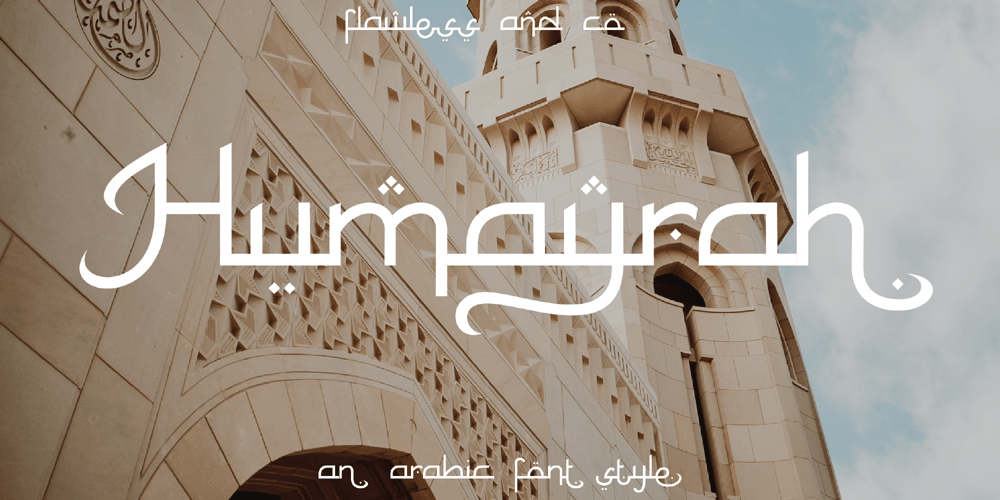
Humayroh
Humayroh font
Humayroh Font Family was designed by Achmad Yani and published by Flawlessandco. Humayroh contains 1 styles and family package options. Introducing Humayroh, an exquisite Arabic font that embodies elegance and sophistication. With its graceful curves and meticulous attention to detail, Humayroh is designed to add a touch of refinement to your projects.An Original typeface that suitable for any graphic designs such as branding materials, t-shirt, print, business cards, logo, poster, t-shirt, photography, quotes .etcThis font support for some multilingual. Modern Sweet Retro that contains uppercase A-Z and lowercase a-z, alternate character, numbers 0-9, and some punctuation.If you need help, just write me! Thanks so much for checking out my shop!